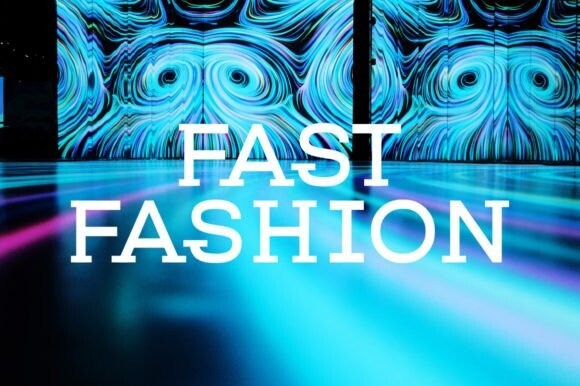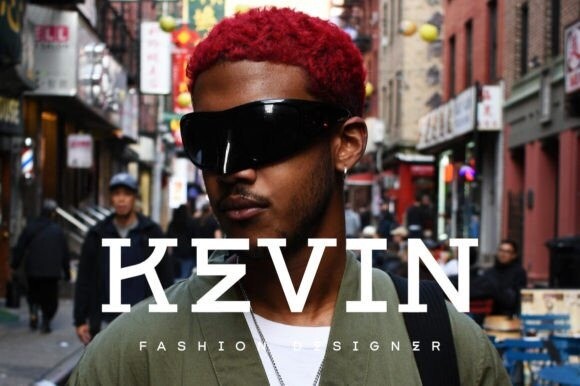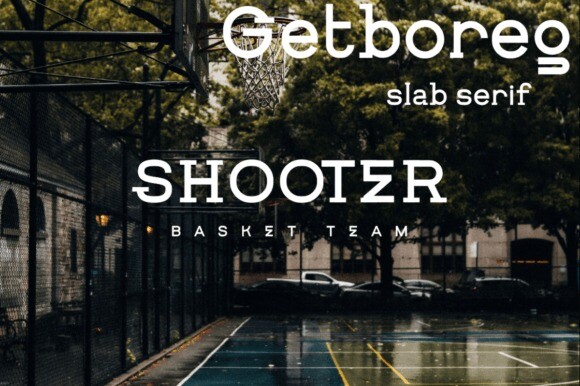
Getboreg Font
Getboreg Font it is a linguistic journey through time and technology. Its characters tell a story that spans centuries, each curve and contour a reflection of the evolution of written communication. leaves an indelible mark that transcends mere letters and becomes a visual legacy.